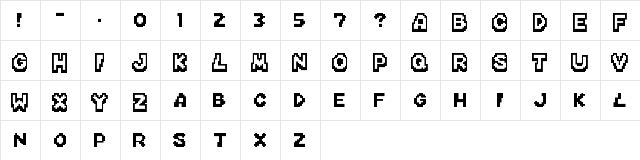
Mario Kart DS Regular
| Designer | David Fens |
Design Context for Mario Kart DS Typeface
Mario Kart DS is a composed and adaptable typeface that performs quietly and consistently across a wide range of design contexts.